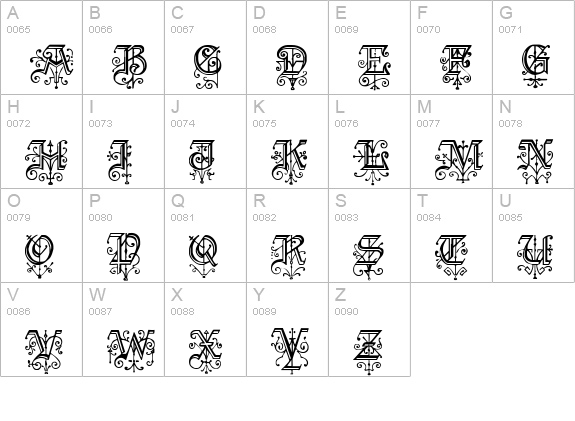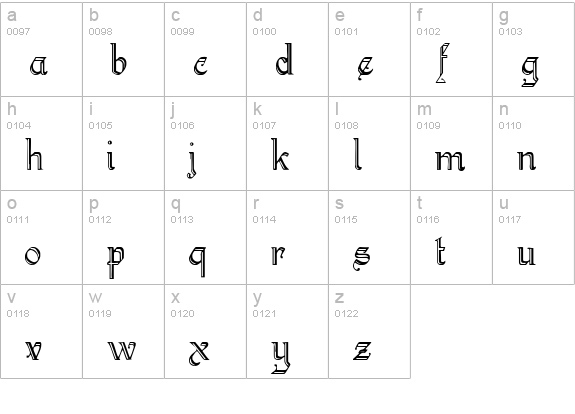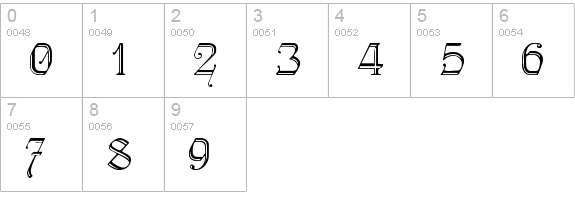
Kelly Ann Gothic Font Details
Kelly Ann Gothic font is a stunning and captivating typeface that is sure to leave a lasting impression. Its intricate and unique design makes it perfect for adding a touch of elegance and sophistication to any project. With its sharp edges and bold lines, this font exudes a sense of strength and power. What sets Kelly Ann Gothic font apart is not just its visually appealing aesthetics, but also its accessibility. This font is available for free download at FontsMarket.com, making it easily accessible to anyone looking to add a touch of Gothic charm to their designs. Whether you are working on a logo, a poster, a website, or any other creative endeavor, Kelly Ann Gothic font is a versatile choice that can elevate your designs to new heights. Its versatility allows it to be used in a variety of contexts, from vintage-inspired designs to contemporary and edgy projects. The attention to detail in Kelly Ann Gothic font is truly remarkable. Each letter is meticulously crafted, ensuring a seamless and harmonious flow between characters. This attention to detail extends to the various stylistic alternates and ligatures available, providing endless possibilities for creative experimentation. Kelly Ann Gothic font is a true testament to the power of typography. It effortlessly combines elegance, strength, and a touch of mystery, making it a perfect choice for those looking to make a bold statement. And with its availability as a free download at FontsMarket.com, it has never been easier to incorporate this stunning font into your designs. So why wait? Download Kelly Ann Gothic font today and let your creativity shine.